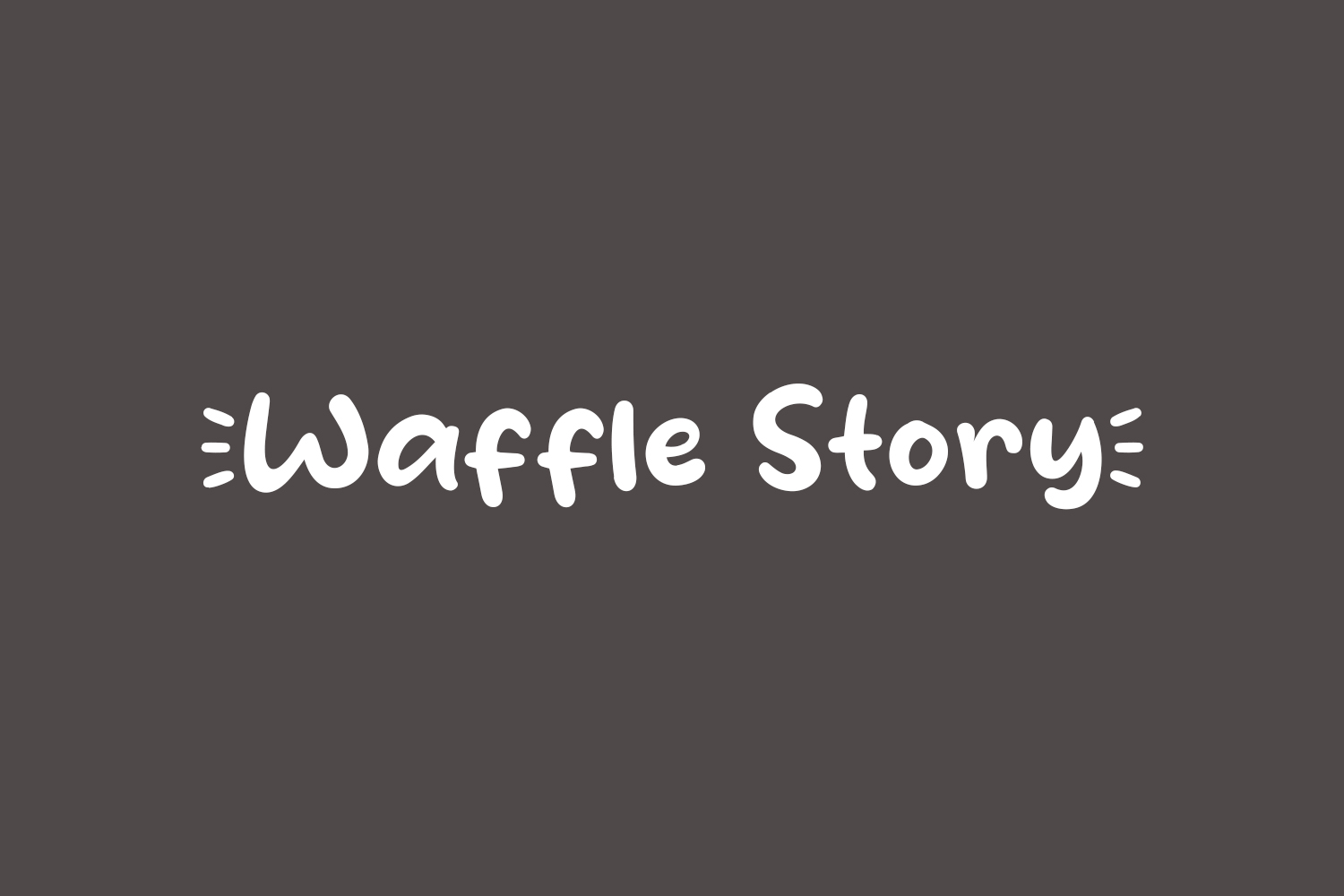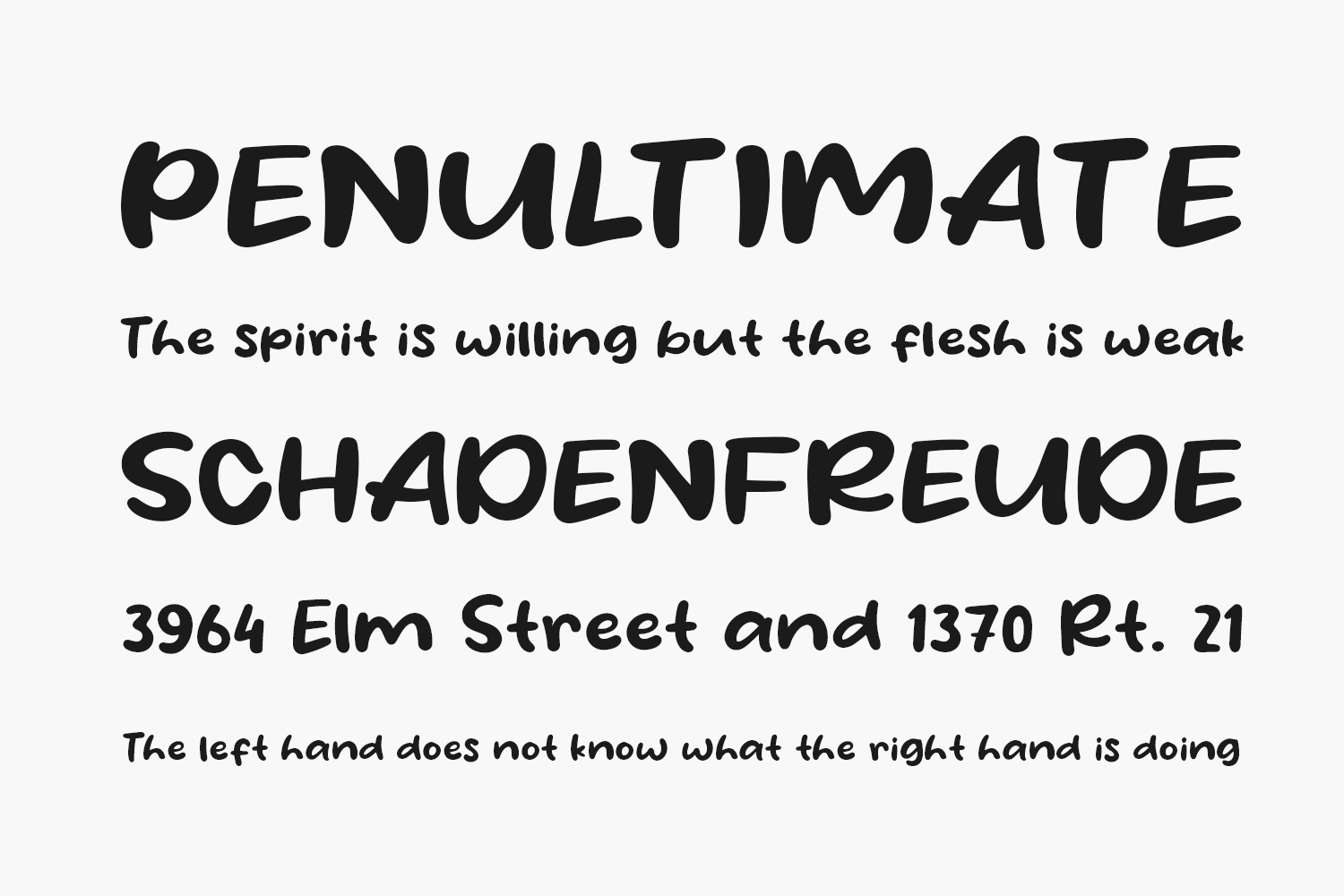
Waffle Story Free Font is a fun and cool display font. Whether you use it for cartoon-related designs, children’s games, or just any creation that requires a playful touch, this font is the perfect choice for your designs. Waffle Story Free Font was designed by Khurasan and is free for personal use only. Please purchase the full version for commercial use.